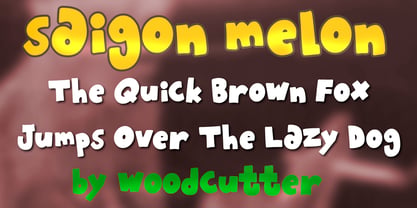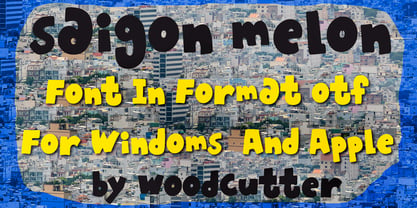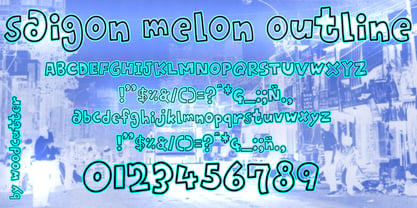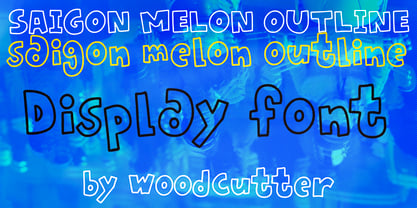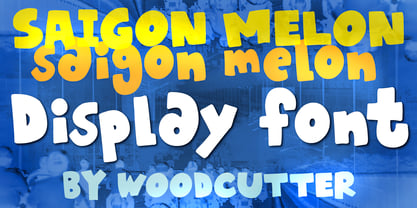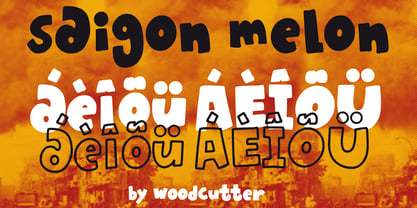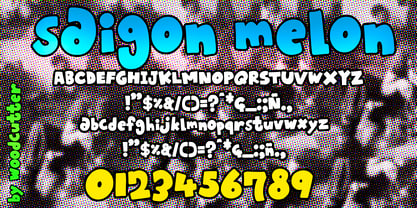
Saigon Melon
by Woodcutter
The Saigon Melon Font Family was designed by Jordi Manero and published by Woodcutter. Saigon Melon contains 2 styles and family package options. More about this family
Saigon Melon is a display type family that embraces freshness, dynamism, and a playful, highly expressive aesthetic. Designed in both uppercase and lowercase with full accent support, this typeface stands out for its hand-drawn appearance, featuring irregular, organic lines full of personality. Each character feels spontaneously crafted, creating a sense of warmth, creativity, and unfiltered expression. The forms of Saigon Melon break away from traditional structural rigidity, presenting slightly distorted letters with varying proportions and a lively, unpredictable visual rhythm. This controlled irregularity creates an engaging flow, making it perfect for compositions that aim to feel human, vibrant, and visually dynamic. Its style evokes hand lettering, informal signage, and energetic typographic illustrations. The family includes two complementary styles. Saigon Melon features solid letterforms with consistent visual weight, making it ideal for headlines, posters, and bold graphic applications. Meanwhile, Saigon Melon Outline offers the same structure in an outline version, removing the fill and providing a lighter, more flexible look, perfect for layering, overlays, and experimental compositions. This type family is ideal for creative branding, packaging, editorial design, posters, cultural projects, or any visual work that seeks to convey joy, spontaneity, and a fresh, distinctive identity.
Designers: Jordi Manero
Foundry: Woodcutter